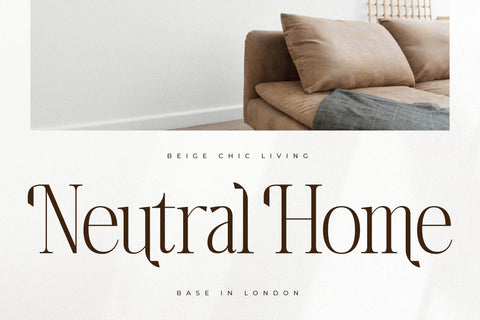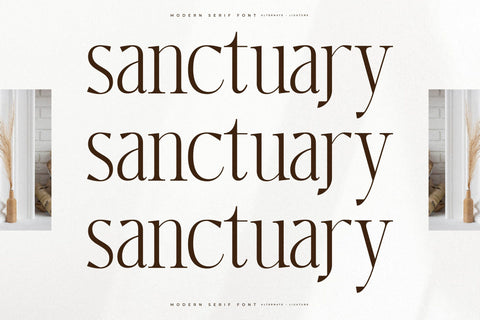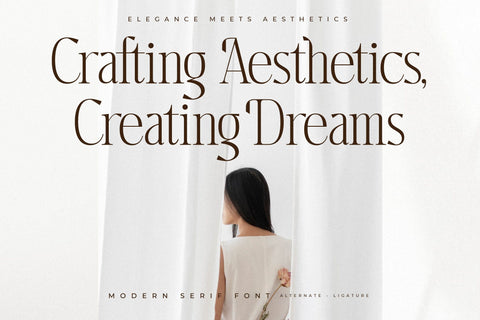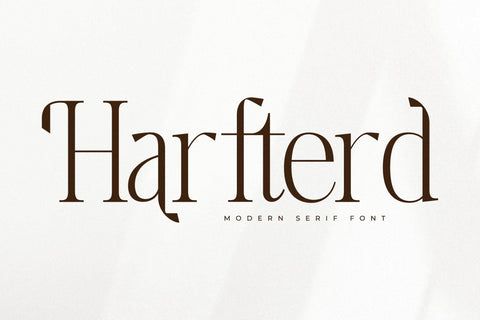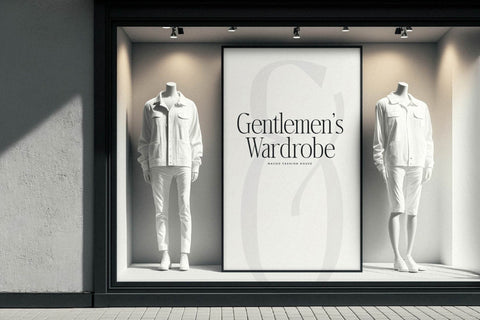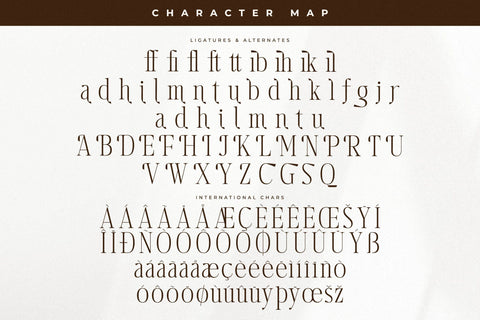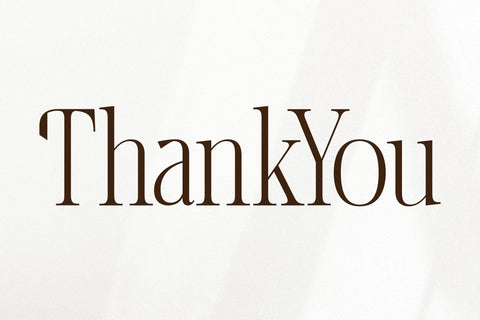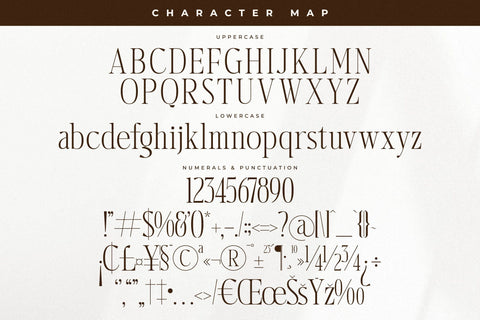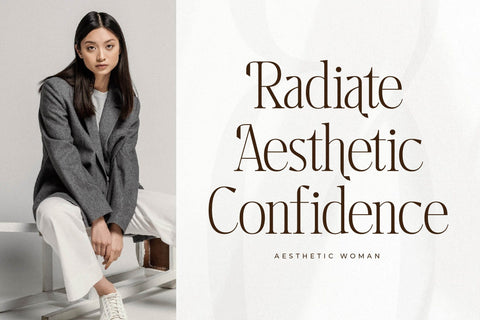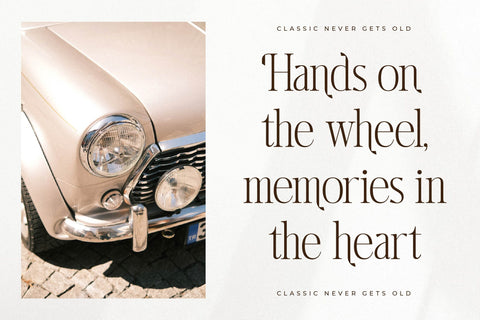
Harfterd - Modern Serif Font
Harfterd - Modern Serif Font , from Letterena, is a Luxury Serif font, suitable for any projects such as: logos, branding projects, homeware designs, product packaging, mugs, quotes, posters, shopping bags, t-shirts, book covers, name card, invitation cards, greeting cards, label, photography, watermark, special events, and all your other luxury and beautiful projects that need a Luxury serif taste.